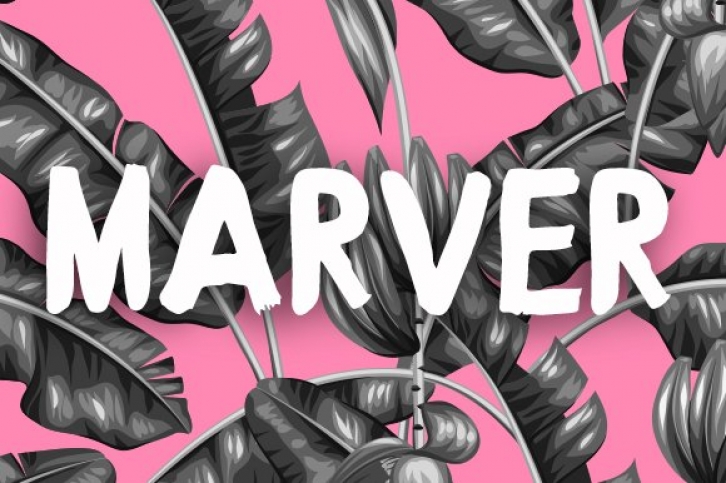
Marver is an OTF font and is the perfect typeface for a project that needs a handmade or casual feel and works well in titles, headlines and on book covers. Marver comprises uppercase A-Z, small caps A-Z, plus all the very basic numbers and symbols.